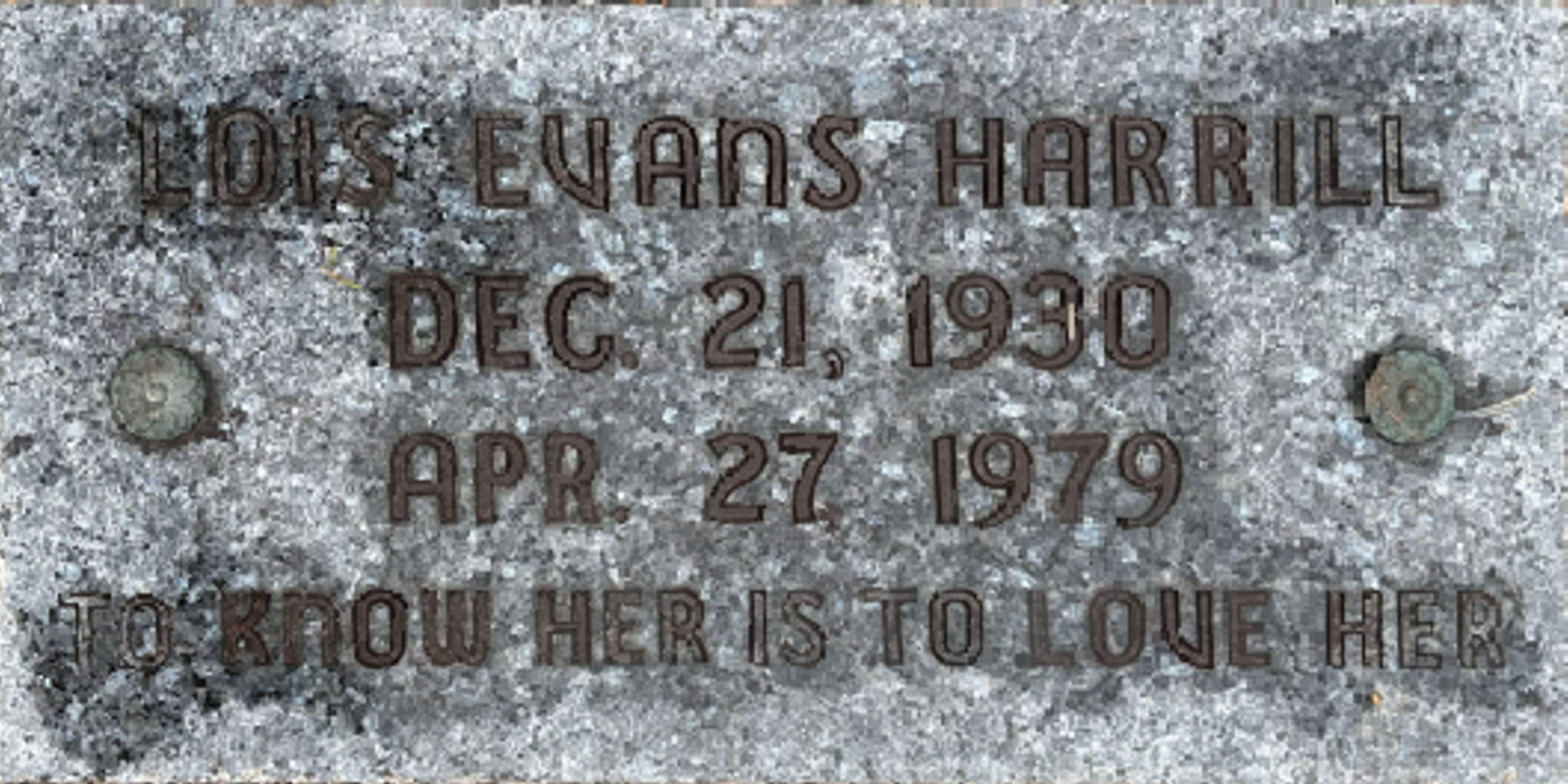
Recognize this Vermarco-like font?
Upon first inspection I thought it was related to Vermarco, could still be I guess, but it doesn’t match any of the ones I have in my system. Sorry for the rough picture. Thanks in advance!
Hello, this is not any known plastic or metal version of Vermarco, and because of the 1979 date was likely a hand-drawn—as 1979 was prior to the creation of any digital versions.